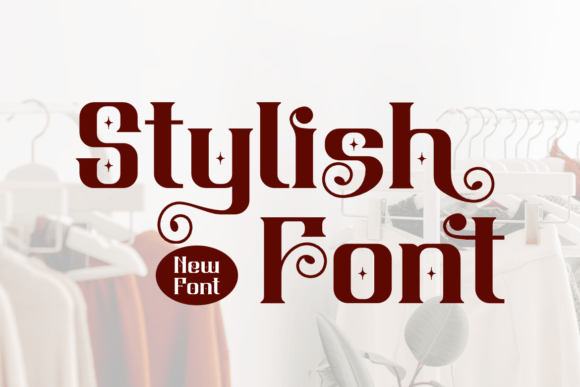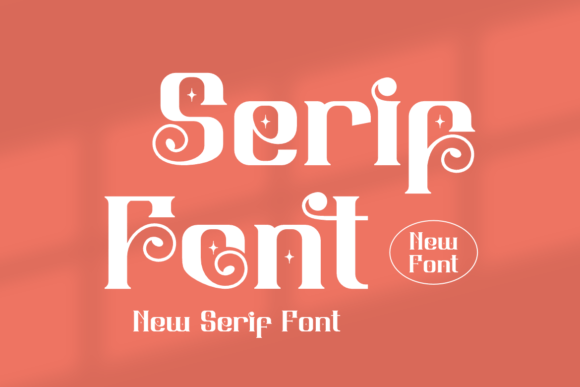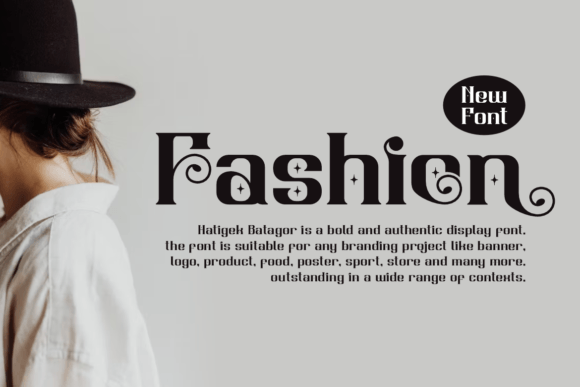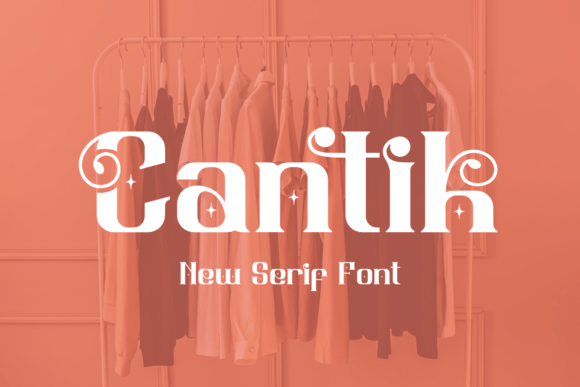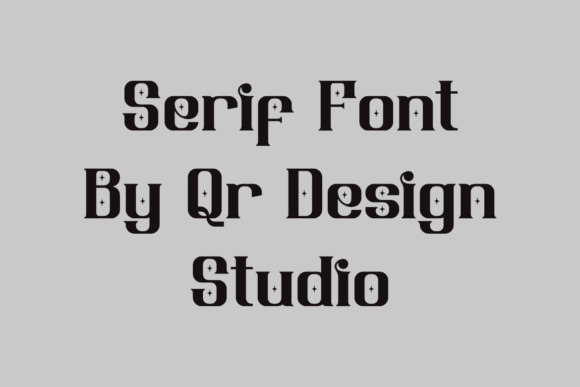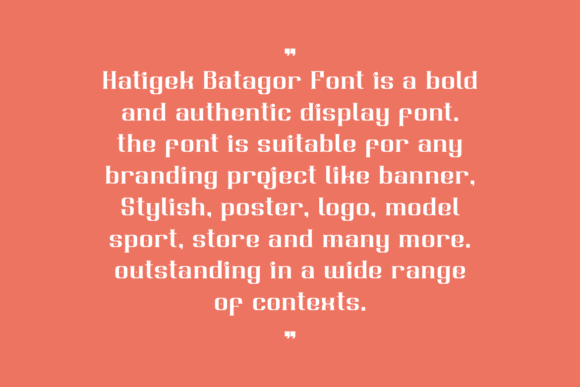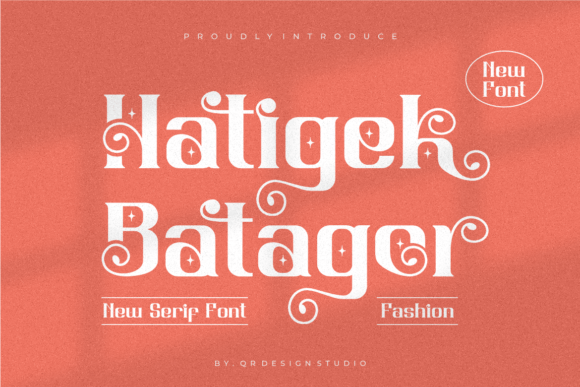
Discover the Elegance of Hatigek Batagor Font: Elevate Your Designs with Versatility
Are you on the hunt for a font that exudes elegance, sophistication, and versatility? Look no further than the Hatigek Batagor Font. This stunning serif font is making waves in the design community, and for good reason. Its unique blend of bold and refined features makes it the perfect choice for a wide range of projects, from wedding invitations and stationery to social media posts and more.
The Characteristics of Hatigek Batagor Font
Hatigek Batagor is an elegant and bold serif font that boasts an incredibly versatile style. Its classic serif lines and contemporary flair make it a standout in any design. The font’s bold features are balanced by its refined and elegant lines, creating a unique aesthetic that is both eye-catching and sophisticated.
Endless Design Possibilities with Hatigek Batagor
One of the best things about Hatigek Batagor is its incredible versatility. This font can be used in a wide range of design projects, including:
- Wedding Invitations: Create beautiful, elegant wedding invitations that set the tone for a sophisticated and memorable event.
- Stationery: Elevate your stationery designs with the font’s refined and classic features.
- Social Media Posts: Make your social media posts stand out with the font’s bold and eye-catching style.
- Branding: Use Hatigek Batagor to create a cohesive and sophisticated brand identity.
- Packaging: Add a touch of elegance to your packaging designs with this versatile font.
Why Designers and Crafters Love Hatigek Batagor
Designers and crafters are raving about Hatigek Batagor, and it’s easy to see why. Here are just a few reasons why this font has become a favorite:
- Elegance: Hatigek Batagor exudes elegance and sophistication, making it perfect for designs that require a touch of refinement.
- Versatility: The font’s versatility means it can be used in a wide range of design projects, from wedding invitations to social media posts.
- Easy to Read: Despite its bold features, Hatigek Batagor is easy to read, making it perfect for designs that require a clear and concise message.
- Unique: The font’s unique blend of classic and contemporary features sets it apart from other serif fonts.
Tips for Using Hatigek Batagor in Your Designs
To get the most out of Hatigek Batagor, here are a few tips to keep in mind:
- Experiment with Sizes: Don’t be afraid to experiment with different font sizes to create visual interest and hierarchy in your designs.
- Play with Colors: Try pairing Hatigek Batagor with different colors to create a unique and eye-catching aesthetic.
- Mix and Match: Combine Hatigek Batagor with other fonts to create a unique and visually appealing design.
In conclusion, Hatigek Batagor Font is a game-changer for designers and crafters. Its elegant and bold serif features, versatility, and ease of use make it the perfect choice for a wide range of design projects. Whether you’re creating wedding invitations, social media posts, or branding materials, Hatigek Batagor is sure to elevate your designs and leave a lasting impression.